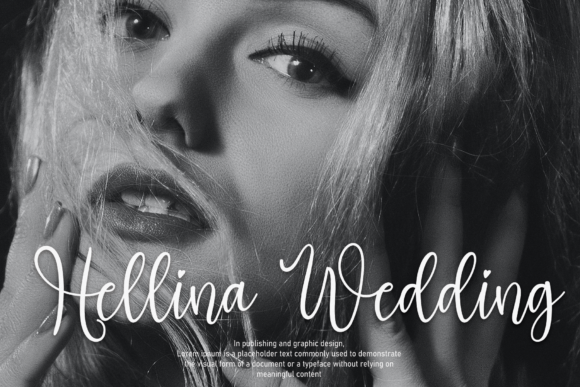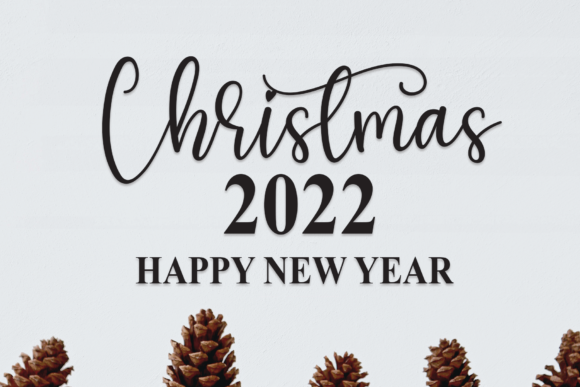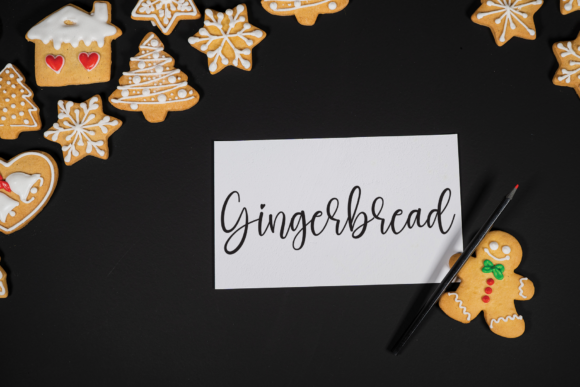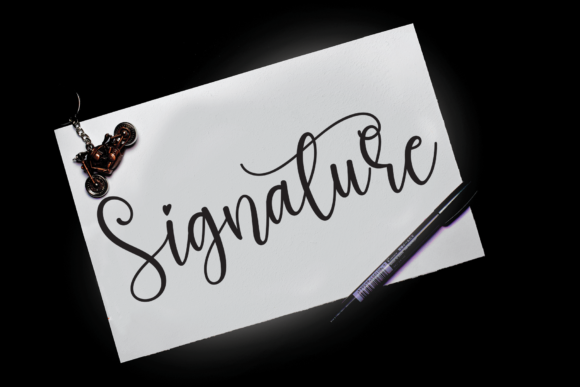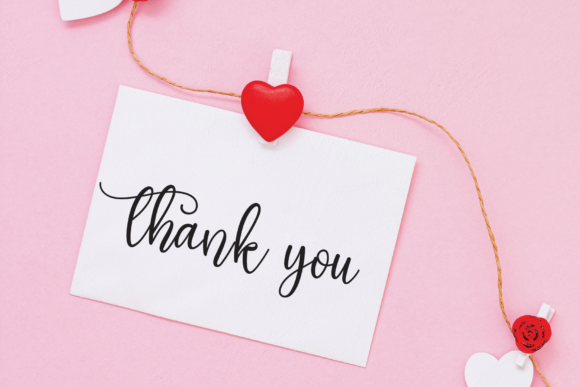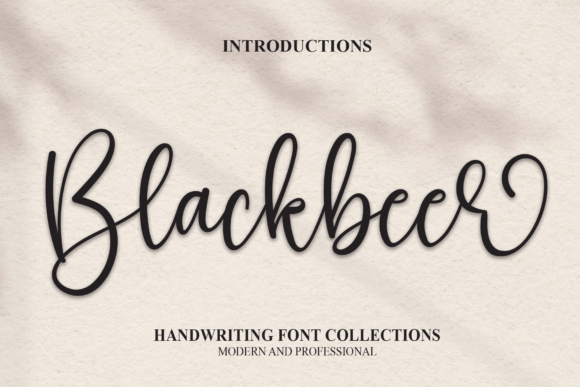
The Quest for the Perfect Font: Discovering Blackbeer
I’ll never forget the design project that led me to Blackbeer Font. I was working on a branding campaign for a luxury boutique hotel, and I was determined to find the perfect handwritten font to capture their elegant yet modern vibe. Hours turned into days, and days into weeks, as I scrolled through font after font, but none seemed quite right. That was until I stumbled upon Blackbeer – an exquisite handwritten font that instantly stole my heart.
A Personal Review: What I Love About Blackbeer
So, what makes Blackbeer so special? Here are a few things that I absolutely adore:
- ✨ Classy calligraphic influences: Blackbeer maintains a sophisticated, elegant feel that’s perfect for high-end branding projects.
- ✅ Contemporary and fresh: Despite its classic roots, Blackbeer feels modern and on-trend, making it versatile for a wide range of design applications.
- 💫 Beautifully crafted: The attention to detail in Blackbeer is exceptional, with smooth lines, flowing curves, and a sense of fluidity that’s hard to find in digital fonts.
While Blackbeer is an amazing font, it’s not without its quirks. Here are a few things to keep in mind:
- 🤔 Legibility at small sizes: Like many handwritten fonts, Blackbeer can be a bit tricky to read at very small sizes. Make sure to test it in your design to ensure it’s legible.
- ⚠️ Limited use in body text: While Blackbeer is stunning for headlines and titles, it may not be the best choice for lengthy body text. Consider pairing it with a complementary font for easier reading.
A Practical Guide to Using Blackbeer
Now that I’ve raved about Blackbeer, let’s dive into how to use it in your designs. Here are some platform-specific tips:
- Experiment with OpenType features like ligatures and stylistic alternates to add visual interest.
- Explore the glyphs panel to access alternate characters, ligatures, and other OpenType features.
The Story Behind Blackbeer
While the true story behind Blackbeer remains a mystery, it’s easy to imagine that it was crafted by a talented type designer with a passion for calligraphy. Perhaps they drew inspiration from ancient manuscripts, elegant wedding invitations, or sophisticated branding campaigns. Whatever the inspiration, Blackbeer is a true masterpiece.
| What makes Blackbeer so special? | Blackbeer’s unique blend of classic calligraphic influences and modern freshness makes it a standout font. |
| Is Blackbeer difficult to read? | Like many handwritten fonts, Blackbeer can be challenging to read at small sizes or in large blocks of text. |
| Can I use Blackbeer with other fonts? | Absolutely! Blackbeer pairs well with a variety of fonts, so feel free to experiment and find the perfect combination for your design. |